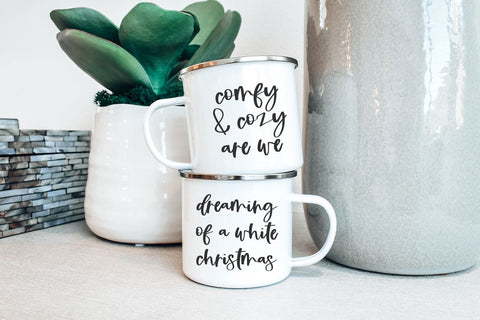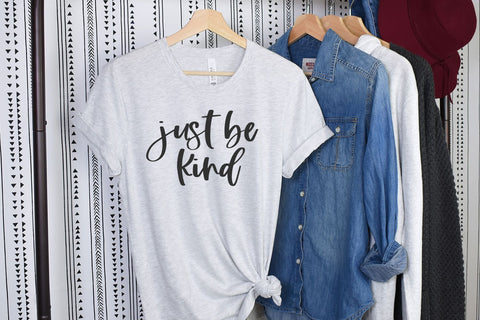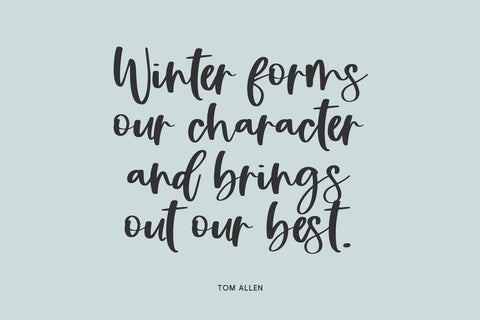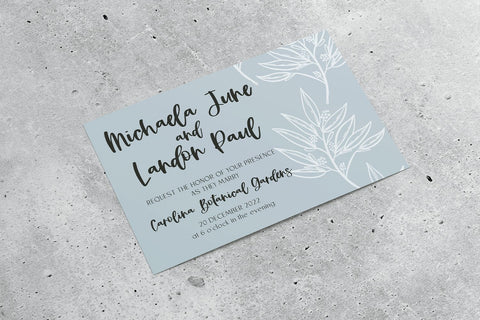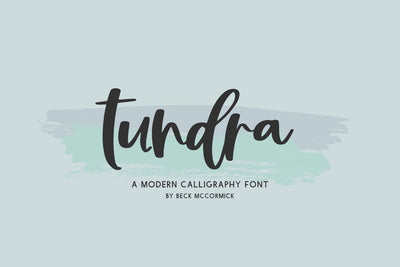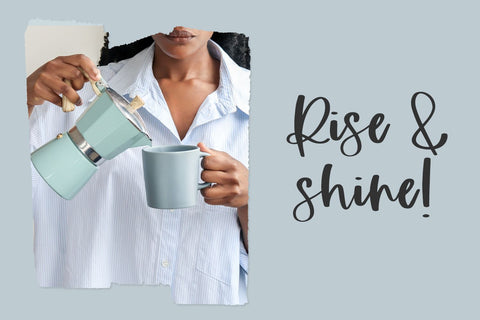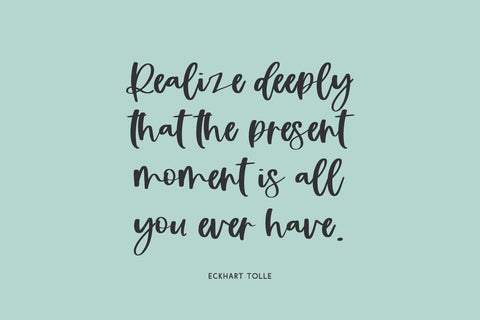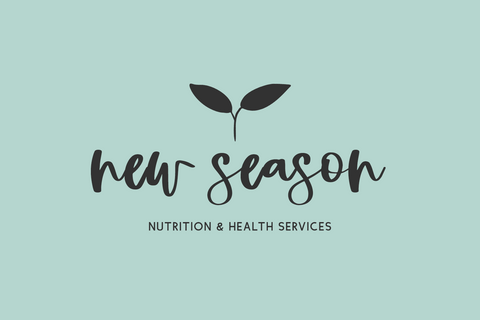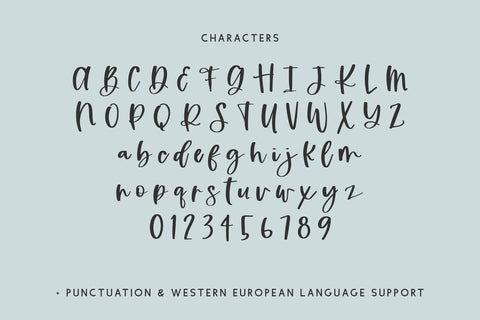
Tundra Script Font
Introducing Tundra, a bouncy modern calligraphy script perfect for crafting & cute farmhouse projects.
Tundra is best for:
- using as a reference to teach handwriting & penmanship skills with a bit of bouncy modern calligraphy flair
- feminine, crafty projects with your Cricut or Silhouette machine, or your SVG design business
- farmhouse decor and crafts
- logos + branding
- digital planners & apps like Goodnotes
- website design + website accents, blog design
- clean print design, like magazines + flyers
- header elements that need handwritten touch
- quote graphics for social media
- feminine graphic tee shirt design & other apparel
Tundra includes:
- full upper + lowercase characters
- numbers + punctuation
- Western European Language Support